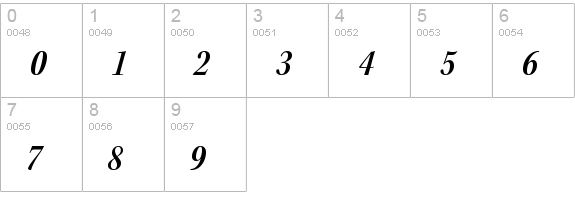
Kepler Std Semibold Condensed Italic Subhead Font Details
Kepler Std Semibold Condensed Italic Subhead is a sub-bold, structured, condensed-width, italic variant in the Kepler typeface family \xE2\x80\x94 well suited to sub-headlines and emphasised passages.
The Kepler Std Semibold Condensed Italic Subhead font is a sleek and stylish typeface that exudes a sense of confidence and sophistication. With its condensed form and bold weight, this font is perfect for adding emphasis and impact to subheadings and titles in various design projects. The italicized style of Kepler Std Semibold Condensed Italic Subhead font adds a touch of elegance and dynamism to any text, making it stand out and grab the attention of readers. Its slightly slanted letters create a sense of movement and energy, making it an excellent choice for creative and modern designs. This font is not only visually appealing but also highly versatile, suitable for a wide range of applications such as branding, advertising, editorial design, and more. Its condensed form allows for efficient use of space, making it ideal for designs with limited room for text. What makes this font even more appealing is that it is freely available to download at FontsMarket.com. You can easily access this font and enhance your design projects without any cost. Whether you are a professional designer or a hobbyist, this font is a valuable asset that can elevate the visual impact of your work. With its combination of boldness, elegance, and availability, the Kepler Std Semibold Condensed Italic Subhead font is a must-have for anyone seeking to create captivating and visually stunning designs. Make a statement with this font and let your creativity shine.